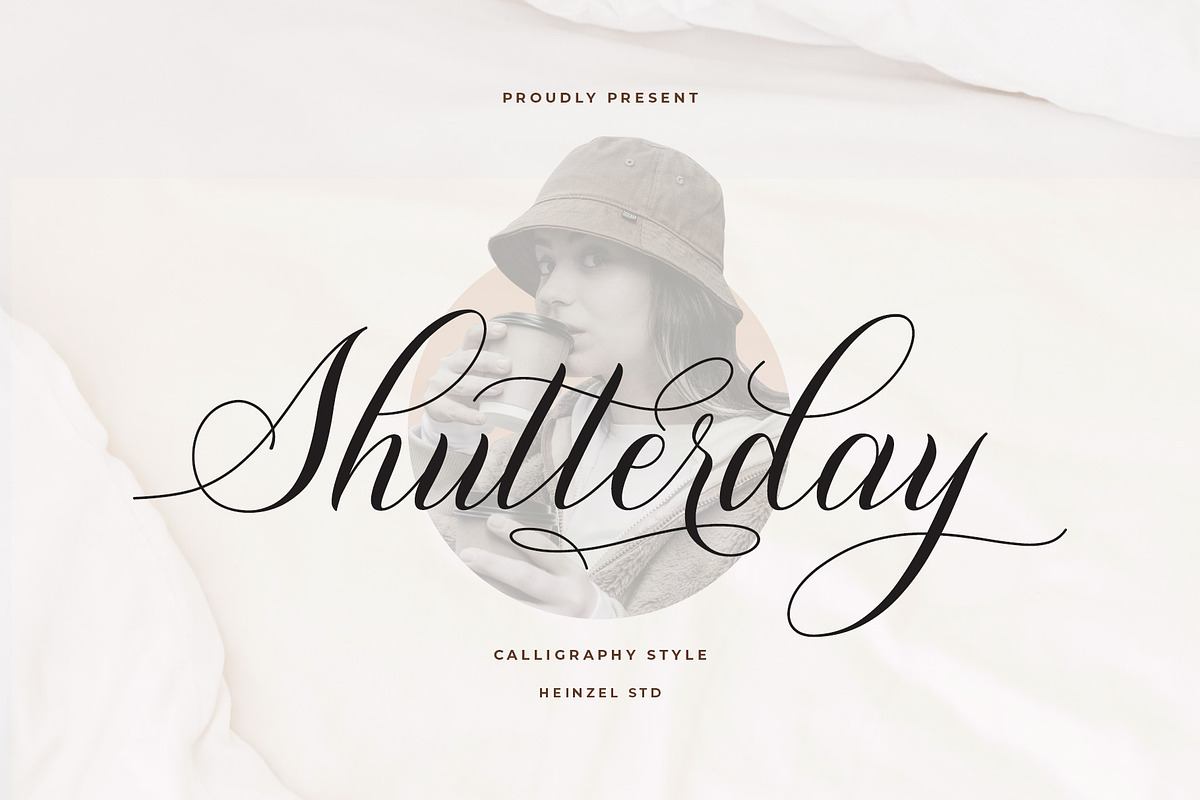
The Shutterday - Calligraphy Script Font Free Download is a beautifully crafted script typeface that brings elegance and style to any project. Perfect for creating logos, invitations, greeting cards, branding, and social media graphics, this font adds a personal, handwritten touch to your designs. Please note, for commercial use, a license must be purchased. You can download it for free for testing purposes.
With its flowing curves and sophisticated design, the Shutterday - Calligraphy Script Font Free Download is ideal for projects that require a touch of luxury and elegance. Whether you're designing for weddings, branding, or custom stationery, this font gives your work a refined and artistic flair.